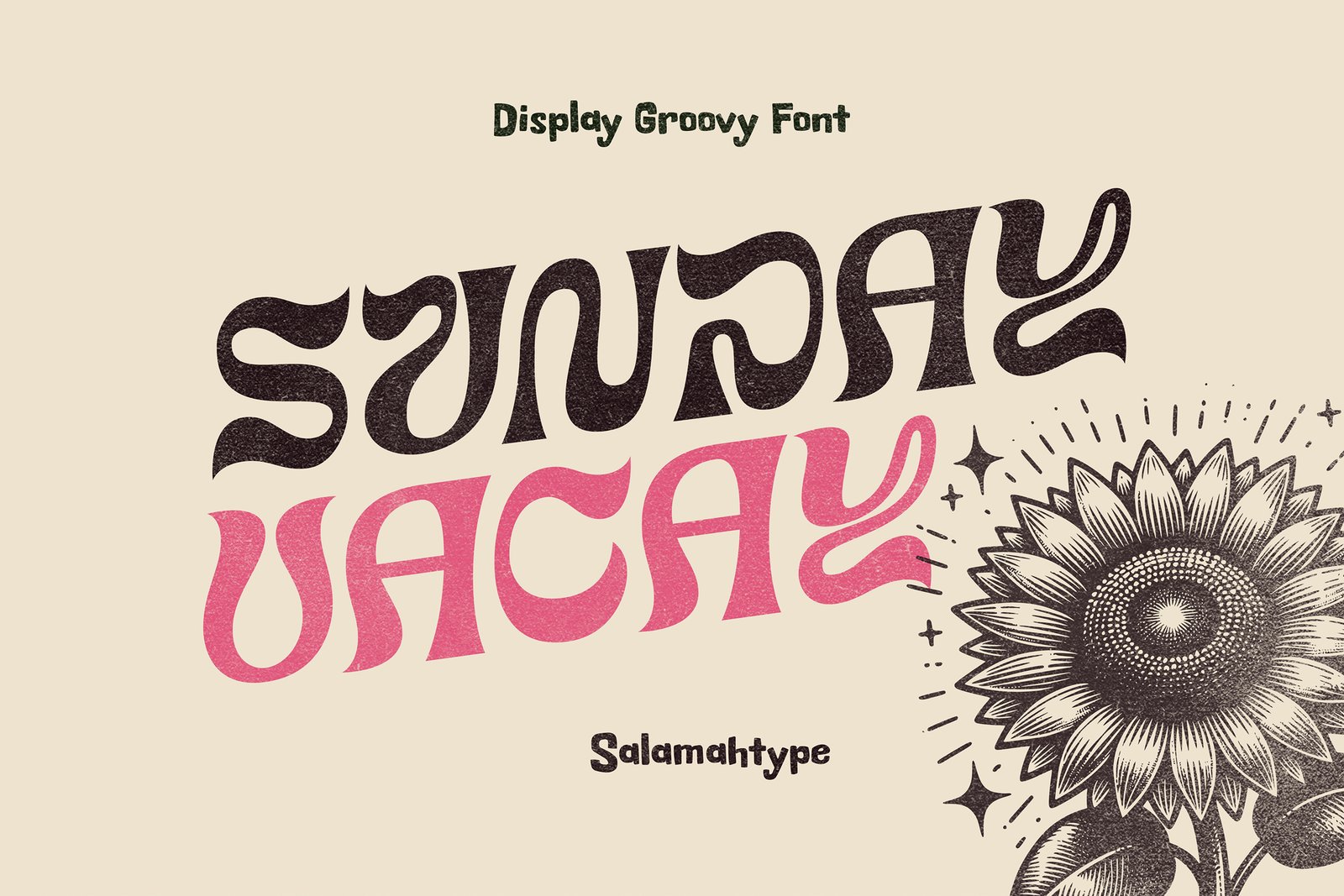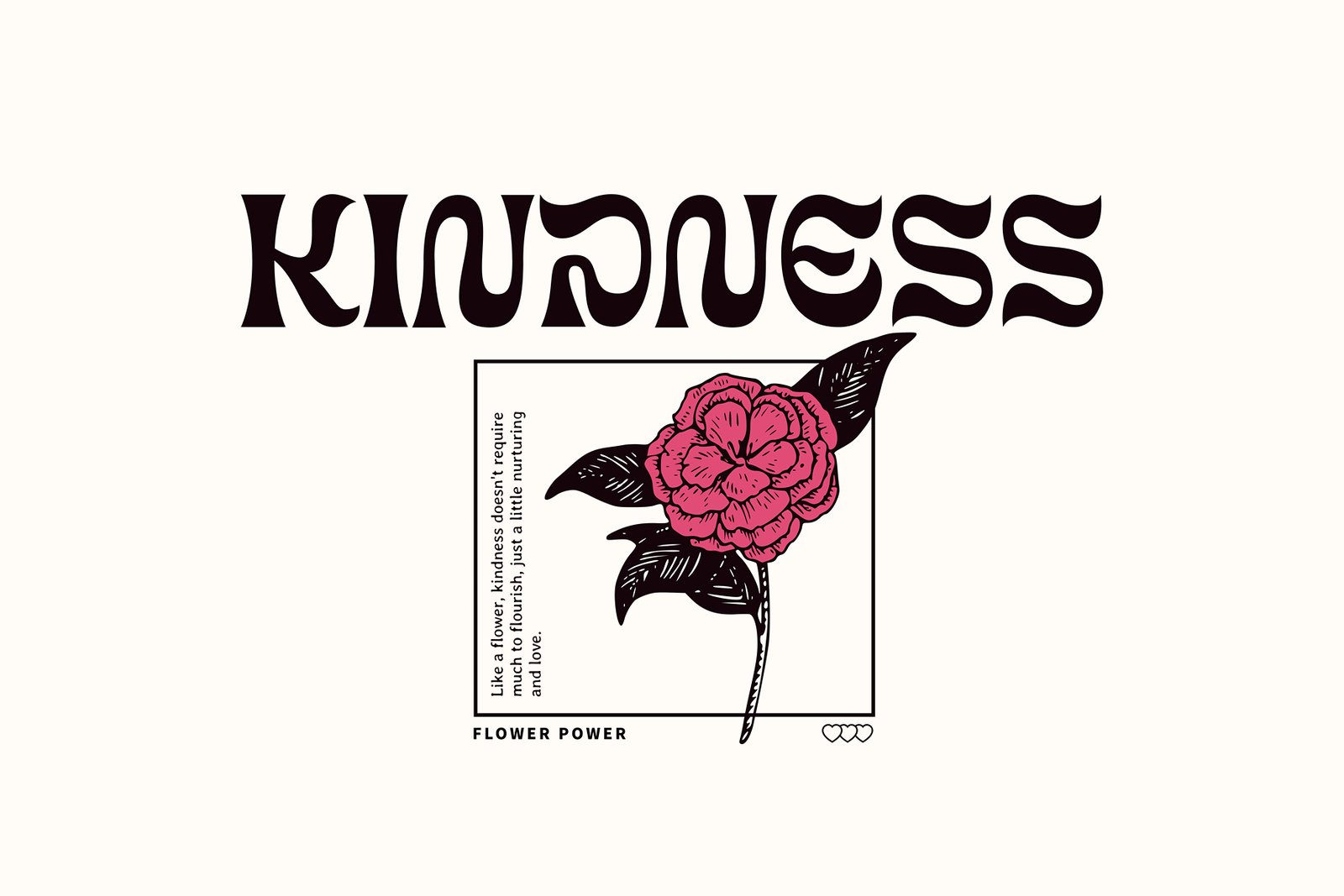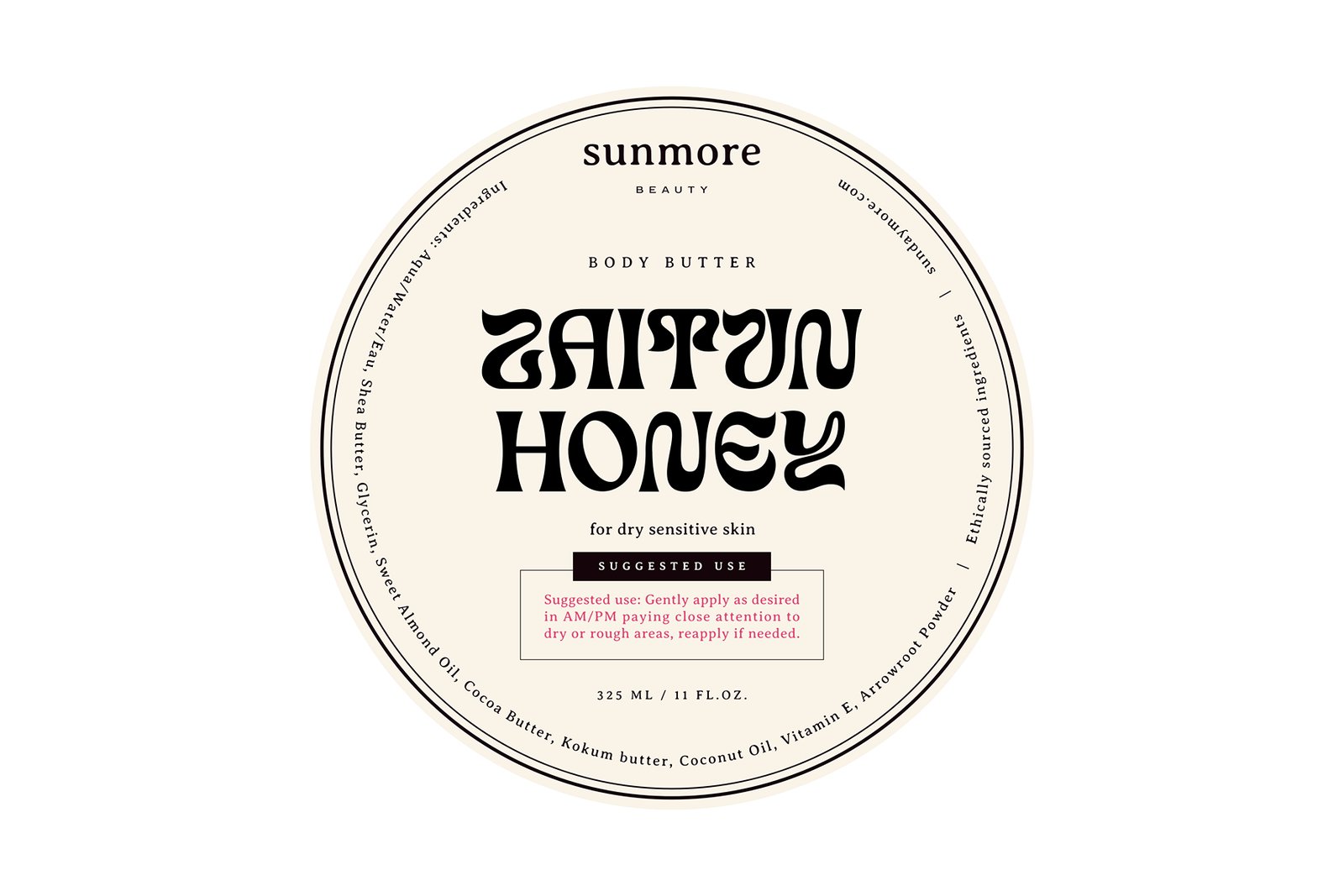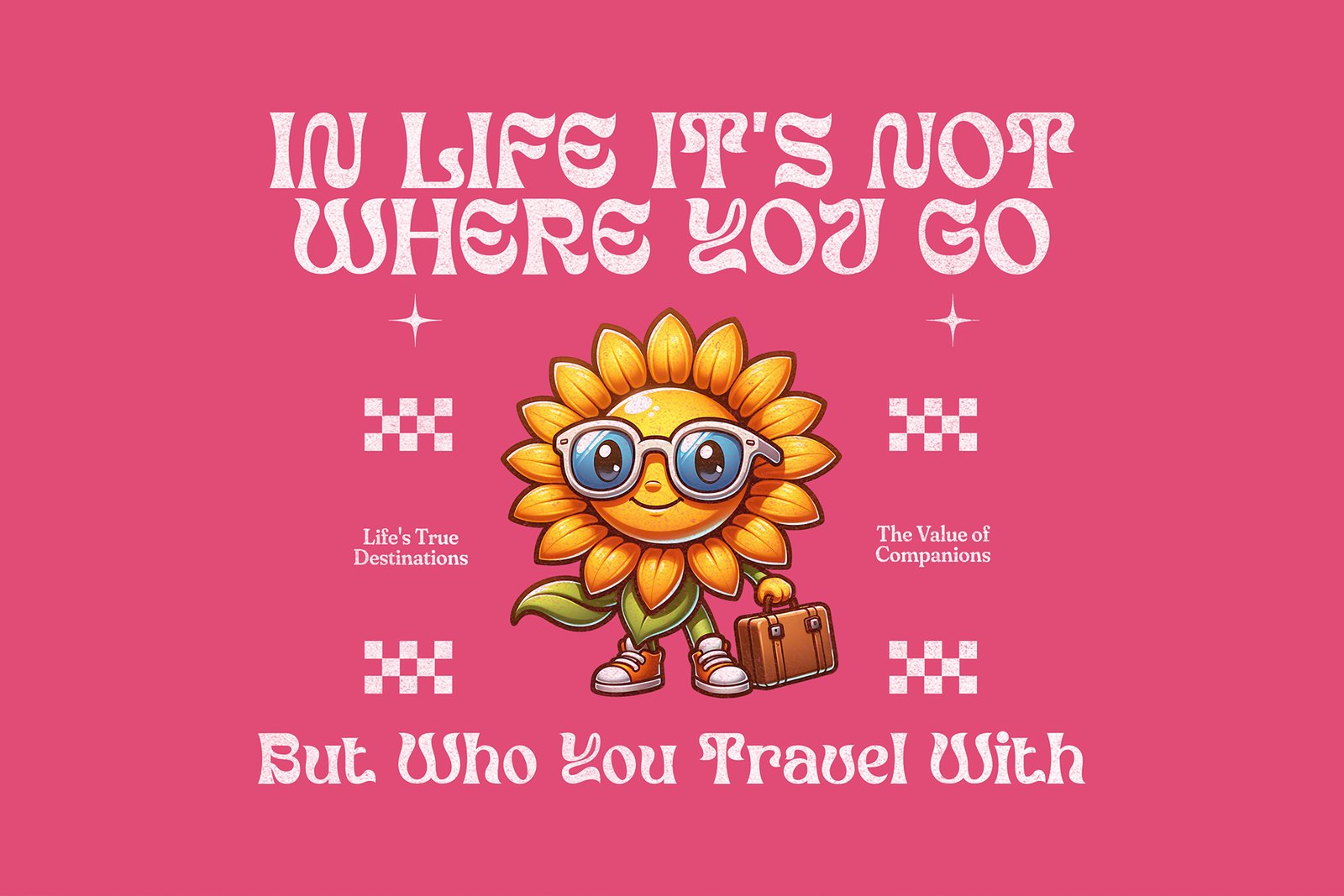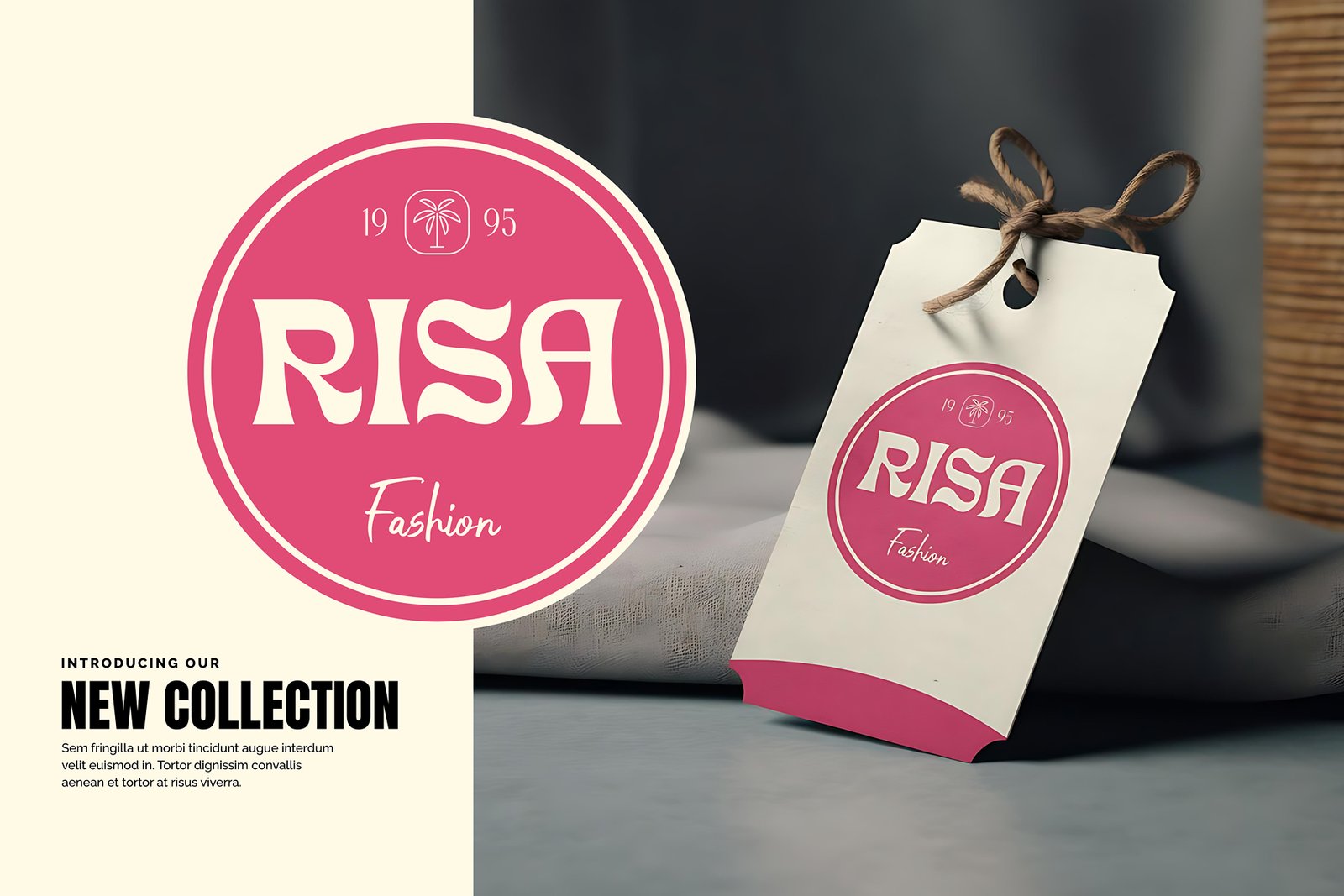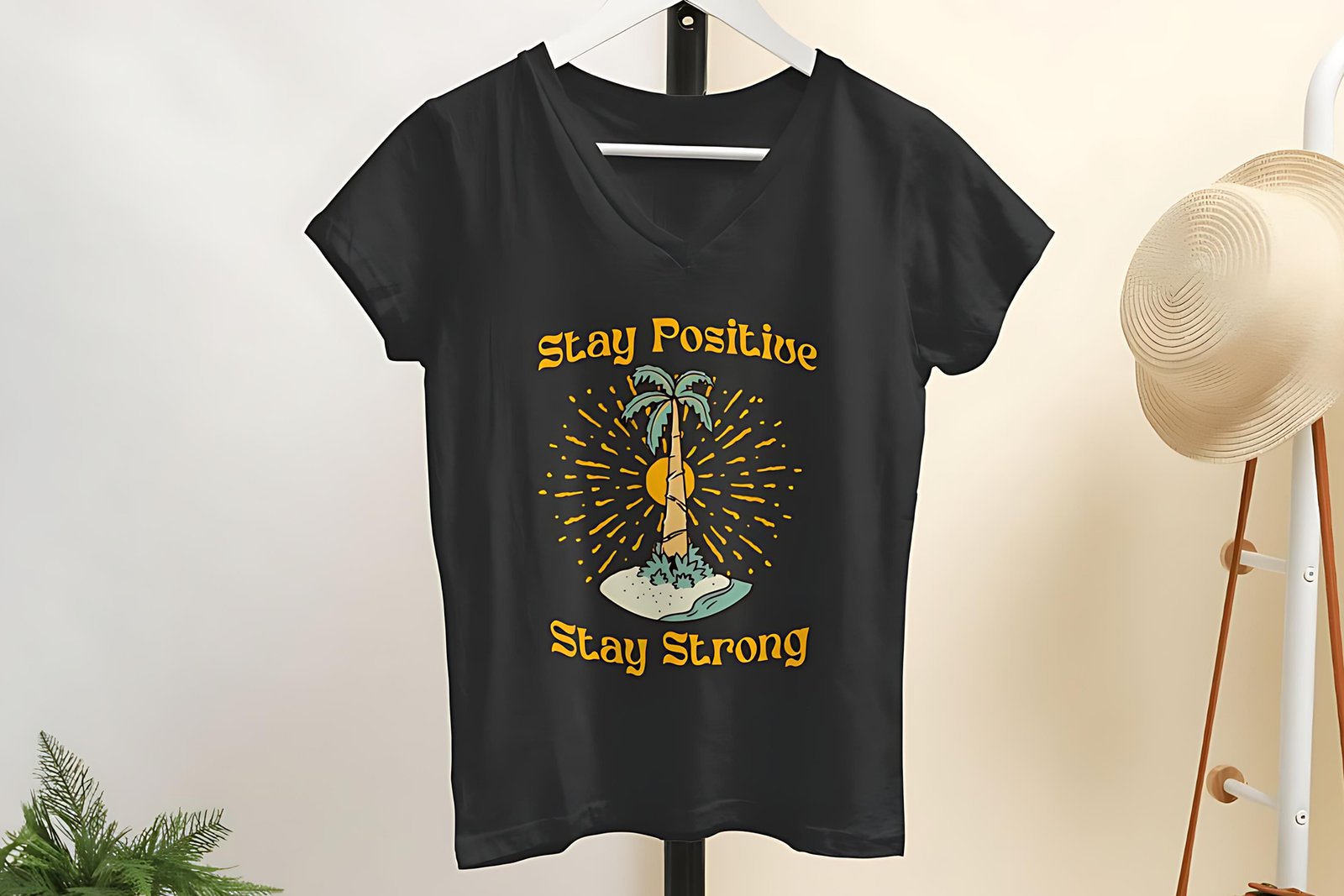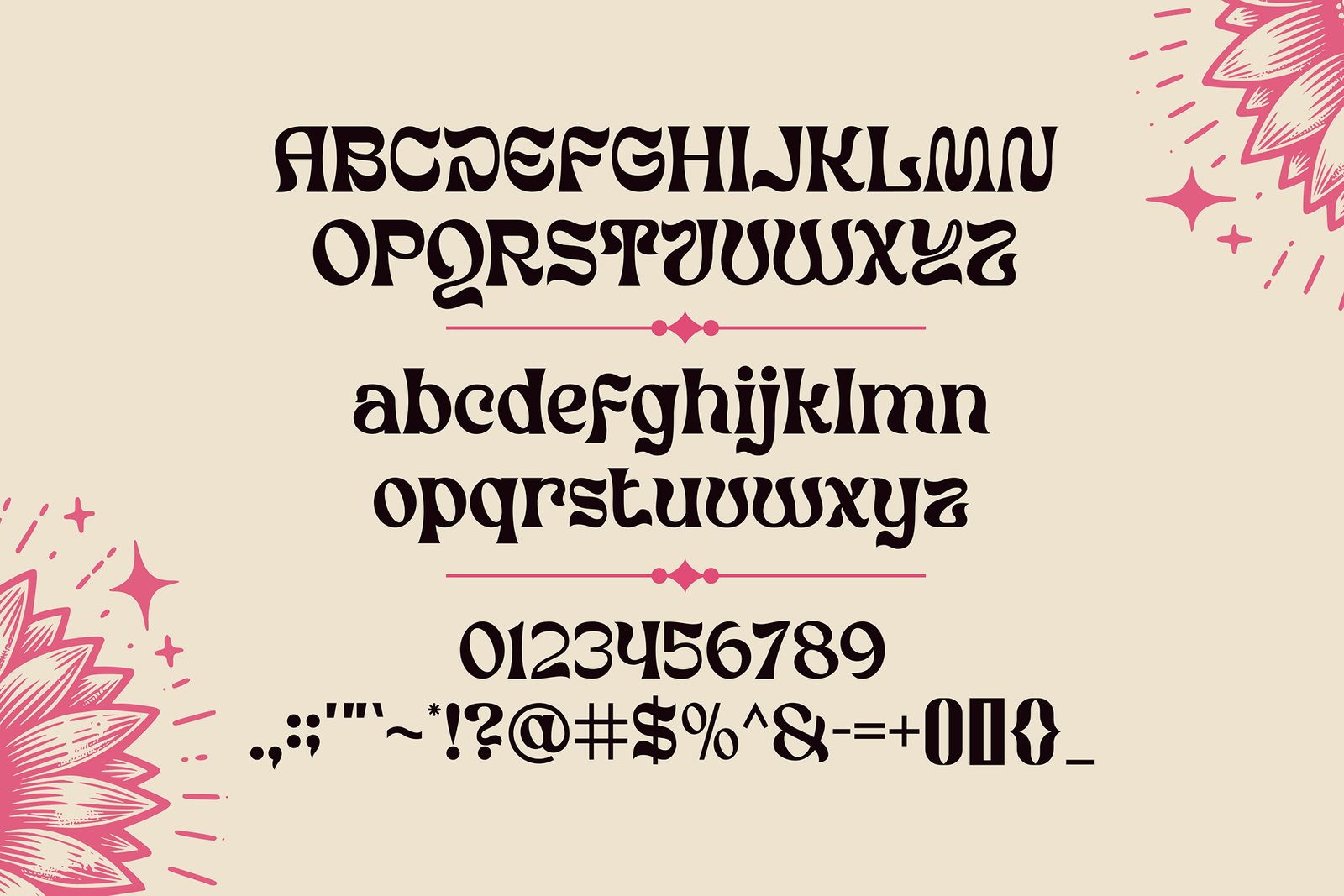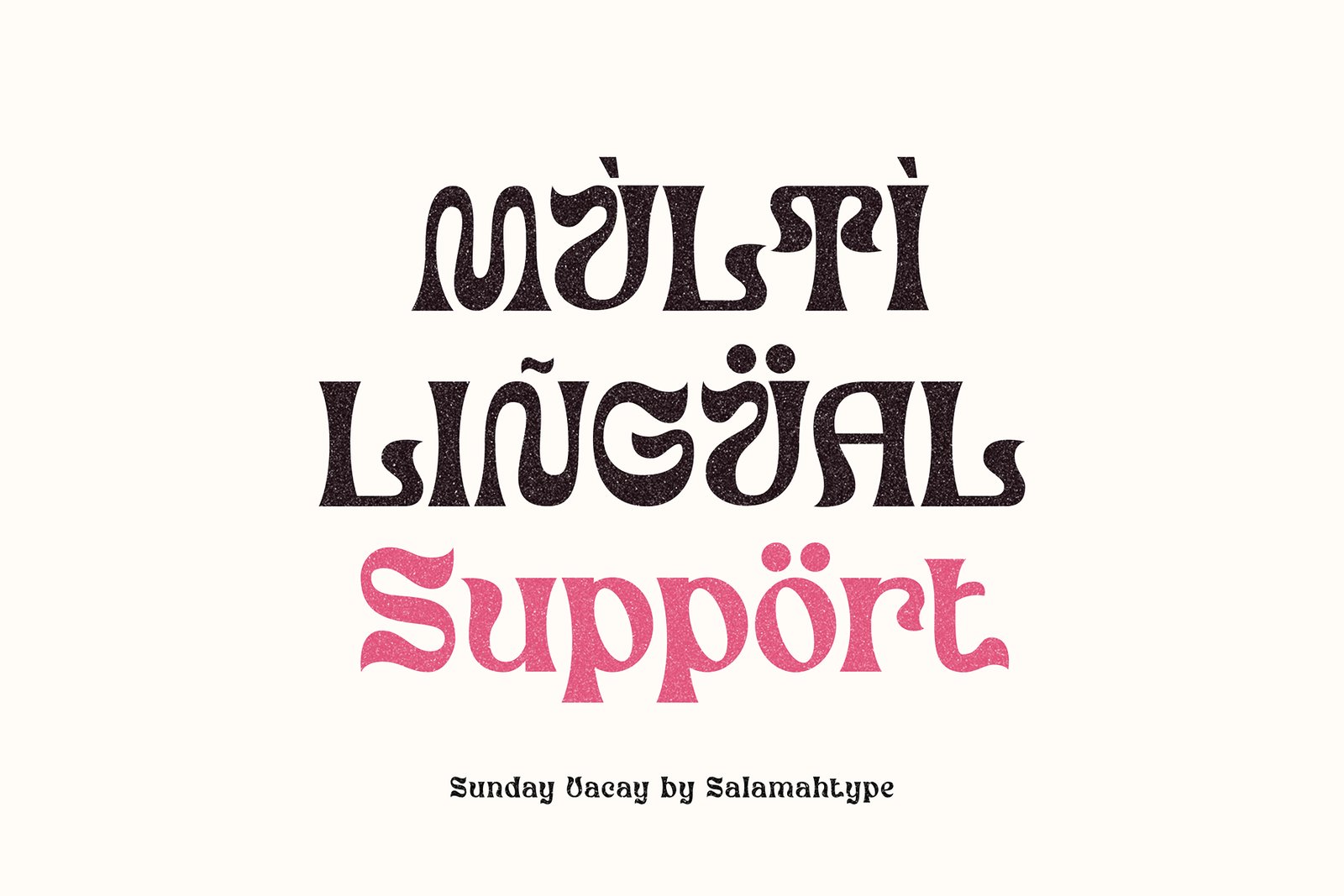
Sunday Vacay is a groovy, fun font that adds a lively, eye-catching flair to any project. With its playful design and vibrant style, it’s the perfect choice for tags, labels, logos, brand names, magazines, and more. Whether you’re working on product packaging, a trendy magazine layout, or branding for a fun-loving business, Sunday Vacay brings an energetic, retro vibe that stands out. This versatile font is ideal for anyone looking to create memorable, engaging designs that leave a lasting impression.Features:
- Uppercase and Lowercase
- Numbers, symbols and Punctuation
- Multilingual Support